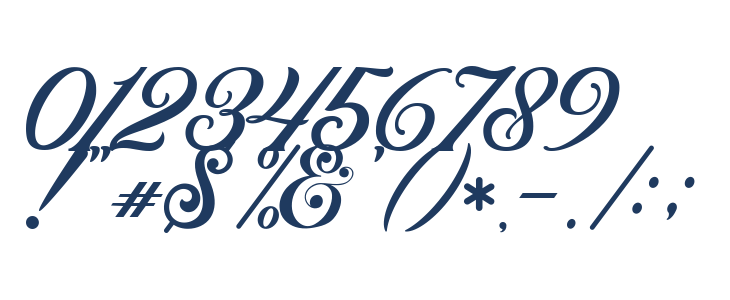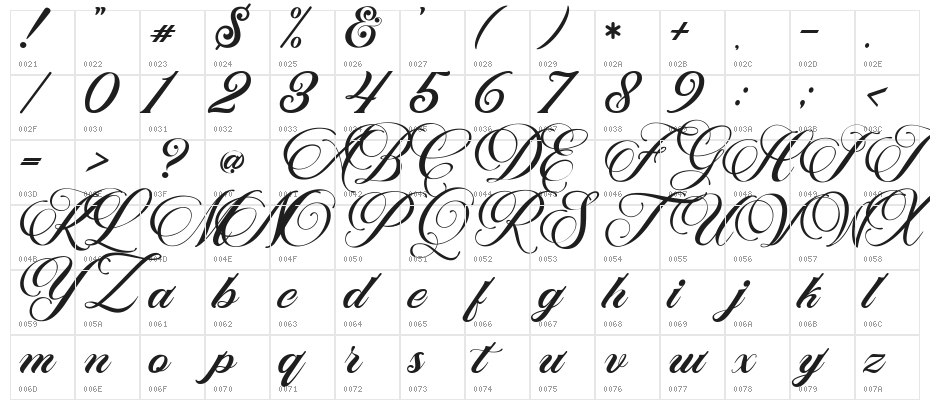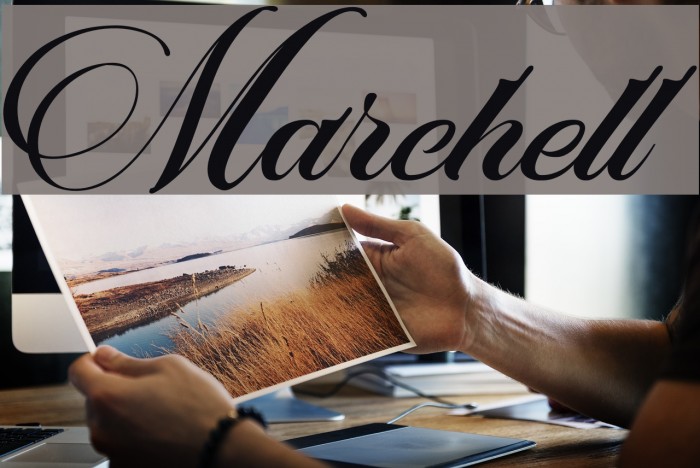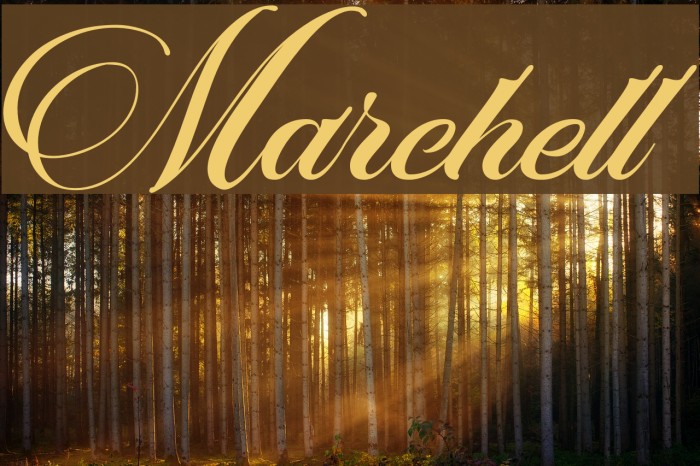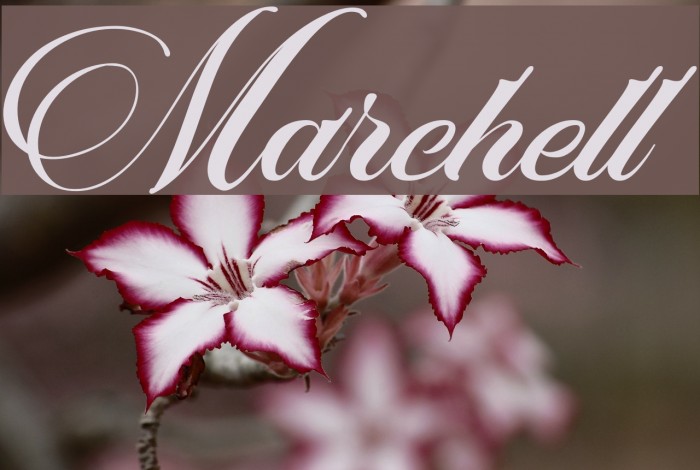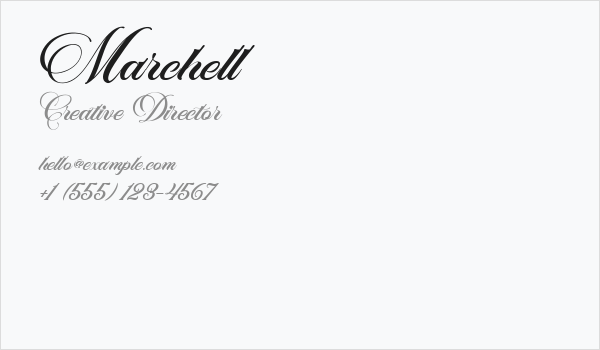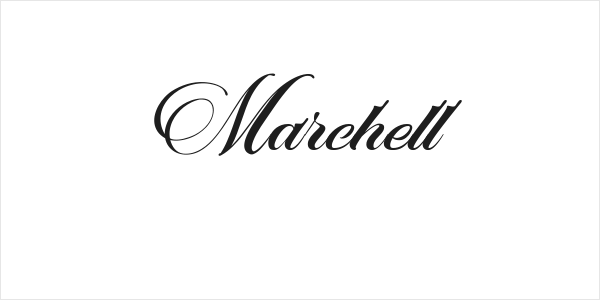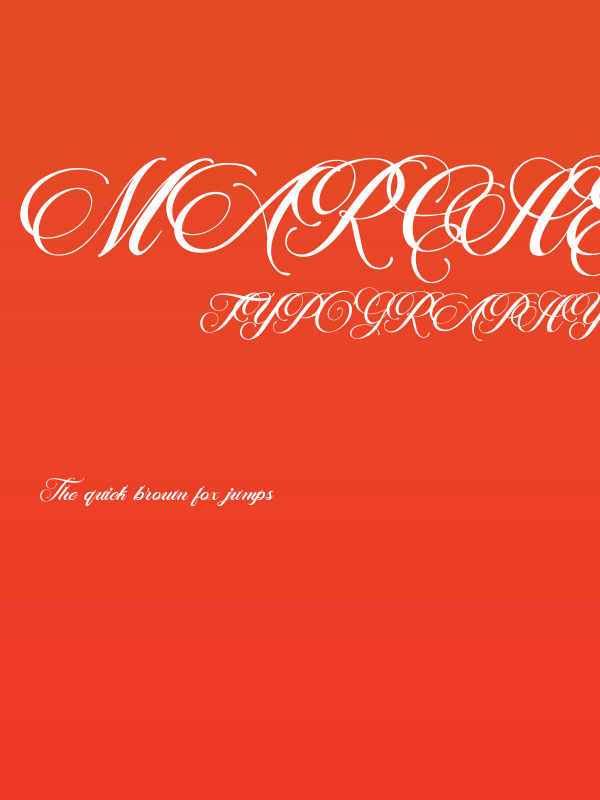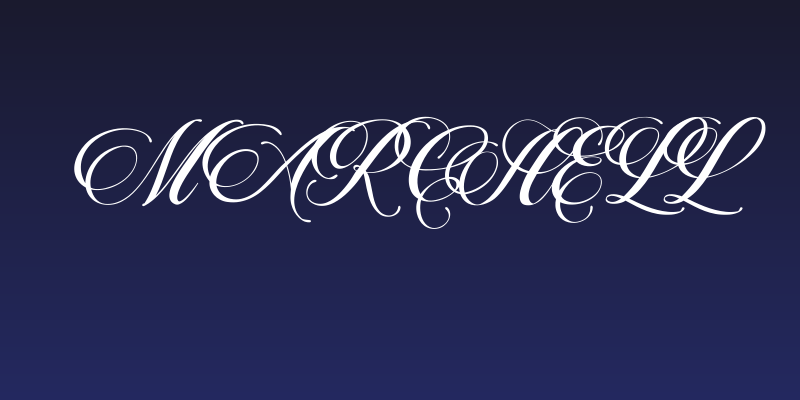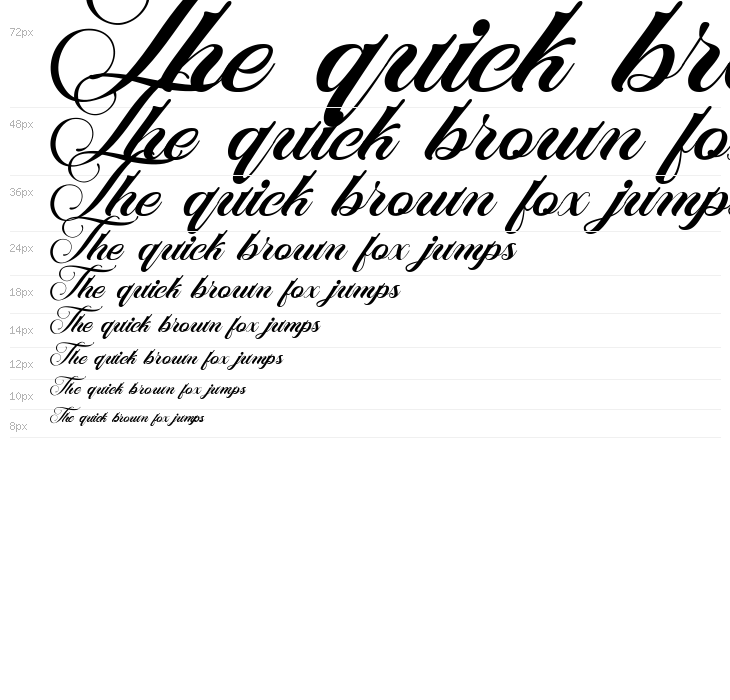
Marchell Font
Marchell Description
This elegant script font features intricate and flowing letterforms, characterized by its ornate and decorative style. The uppercase letters are highly stylized with elaborate swashes and flourishes, creating a sense of sophistication and luxury. The lowercase letters maintain a consistent flow, with smooth curves and a slightly slanted orientation, enhancing its graceful appearance. The numerals are designed to complement the overall aesthetic, with similar curves and embellishments. This font is ideal for projects that require a touch of elegance and refinement, such as wedding invitations, formal event programs, or luxury branding. Its decorative nature makes it stand out, while maintaining readability through its well-balanced design.
Use CaseLogos, Invitations, Branding
Proposed ProjectsWedding invitations, luxury branding, formal event programs, elegant packaging.